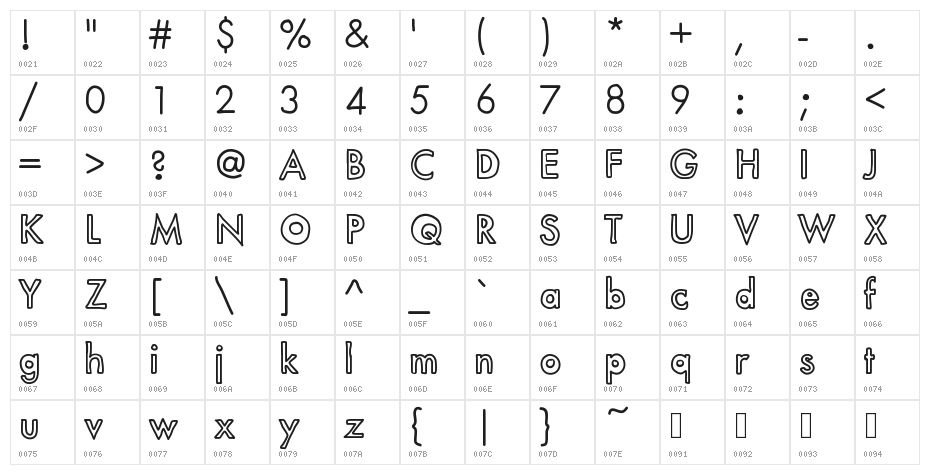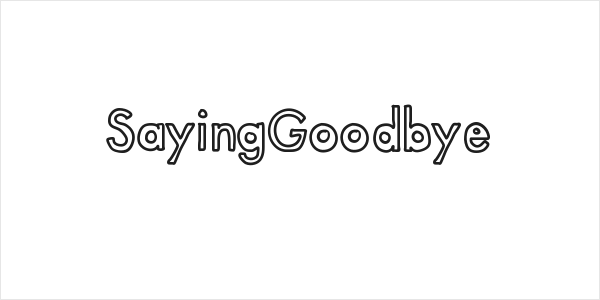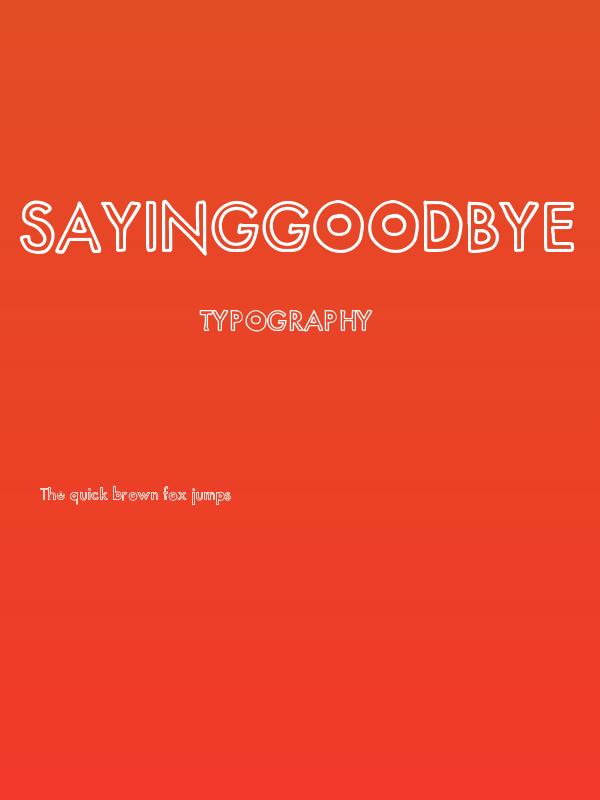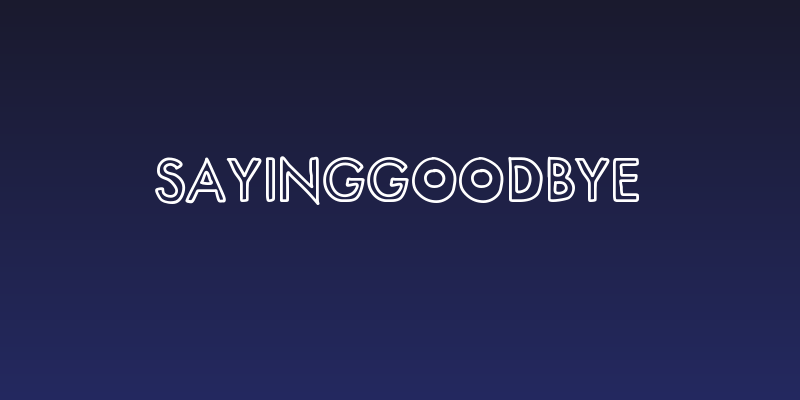
SayingGoodbye Font
SayingGoodbye Description
This font features a playful and bold outline style, characterized by its thick, uniform strokes that create a hollow effect. The uppercase and lowercase letters maintain a consistent width, giving the font a balanced and cohesive appearance. The numerals and special characters follow the same design principles, ensuring uniformity across all elements. The font's rounded edges and smooth curves contribute to its friendly and approachable aesthetic, making it suitable for a variety of creative applications. Its unique outline design adds a layer of depth and interest, making it stand out in both digital and print media.
Overall StylePlayful, Modern
Proposed ProjectsIdeal for children's books, playful branding, posters, and creative digital content.